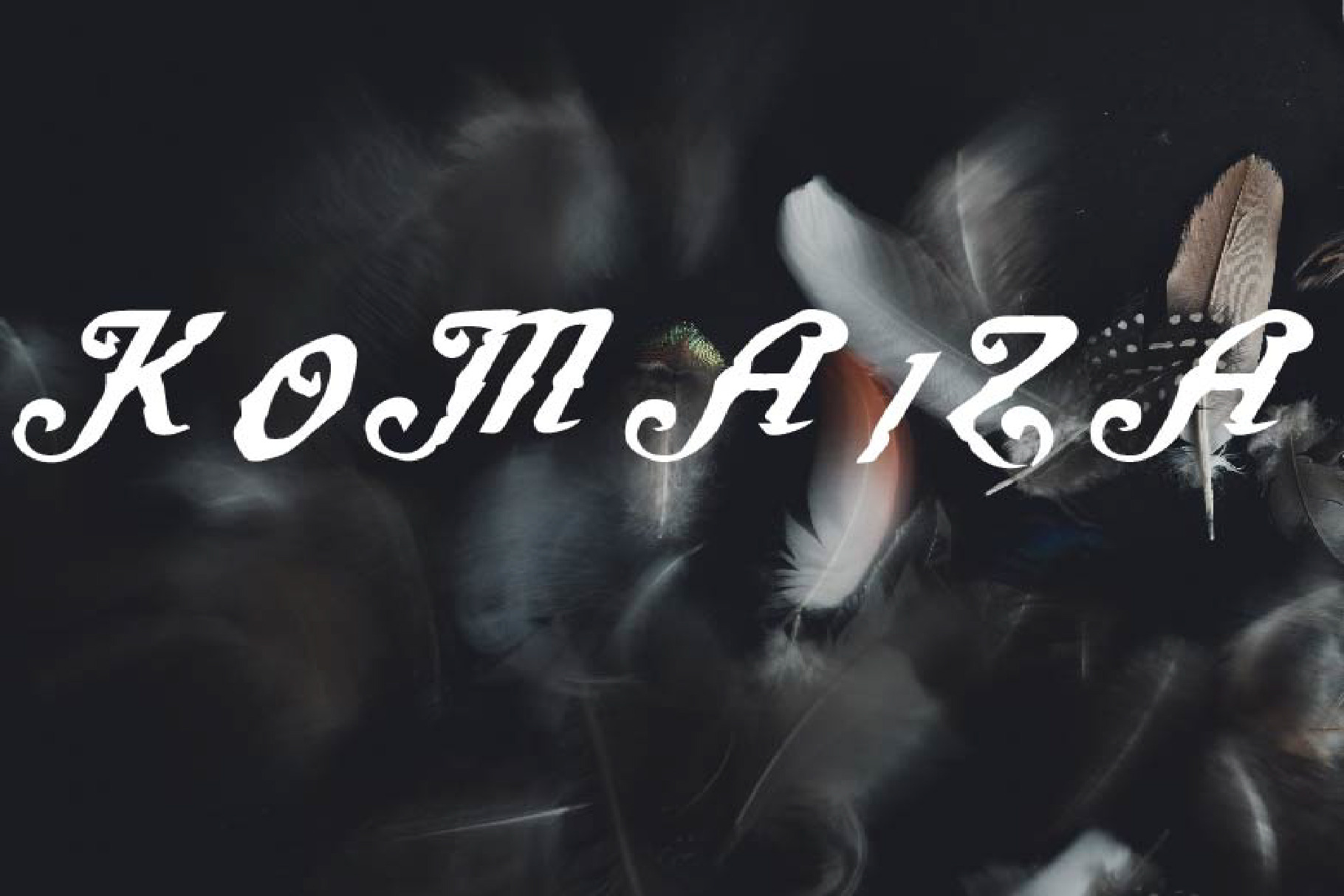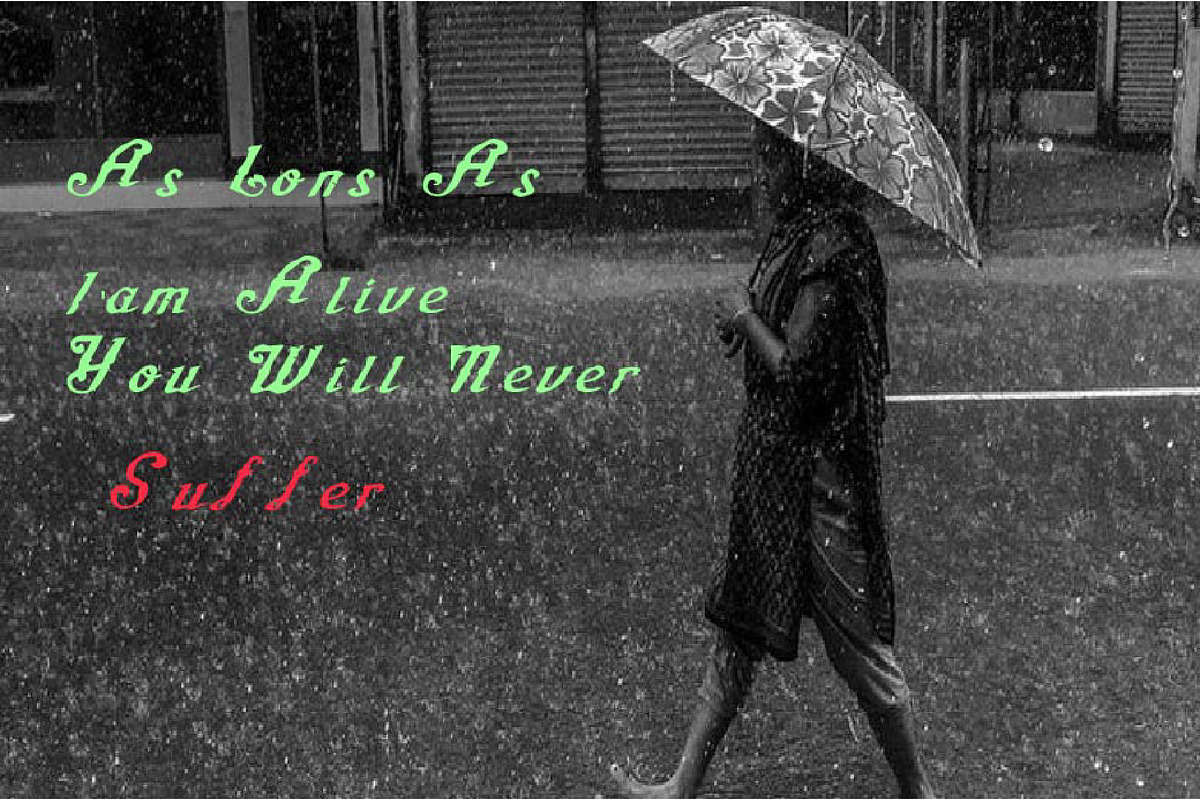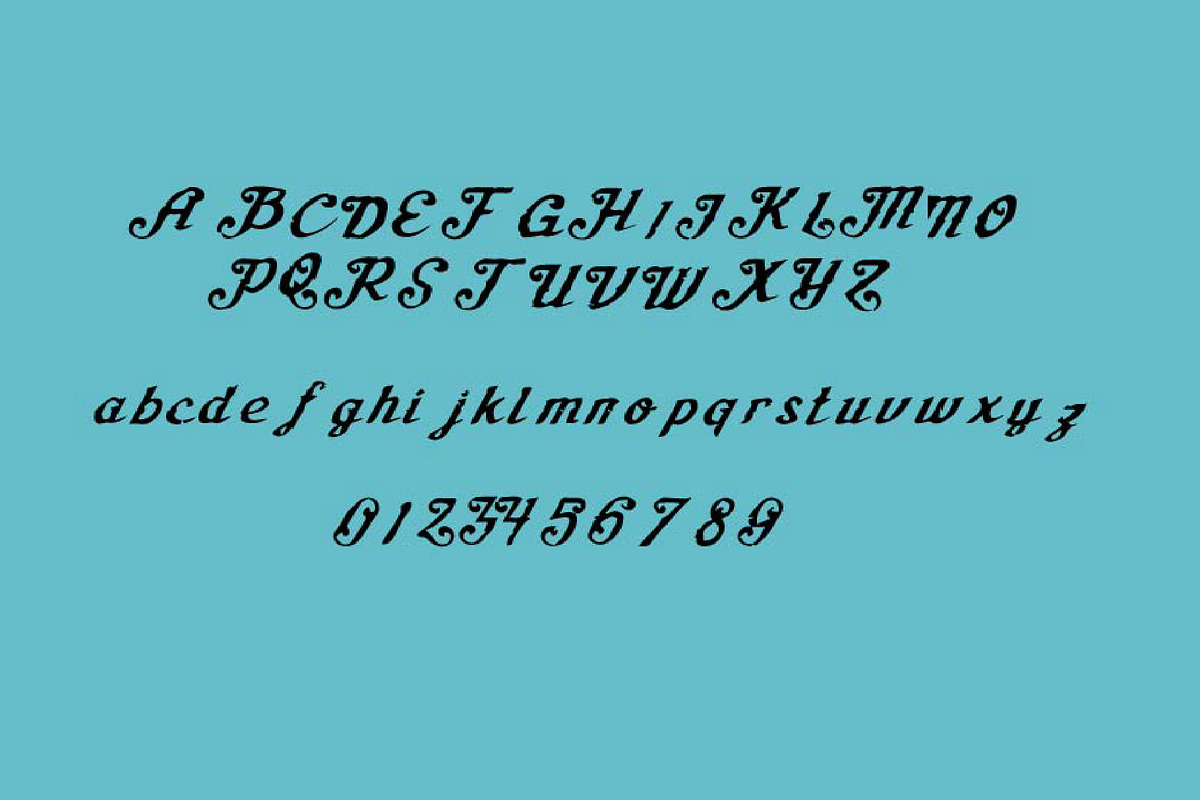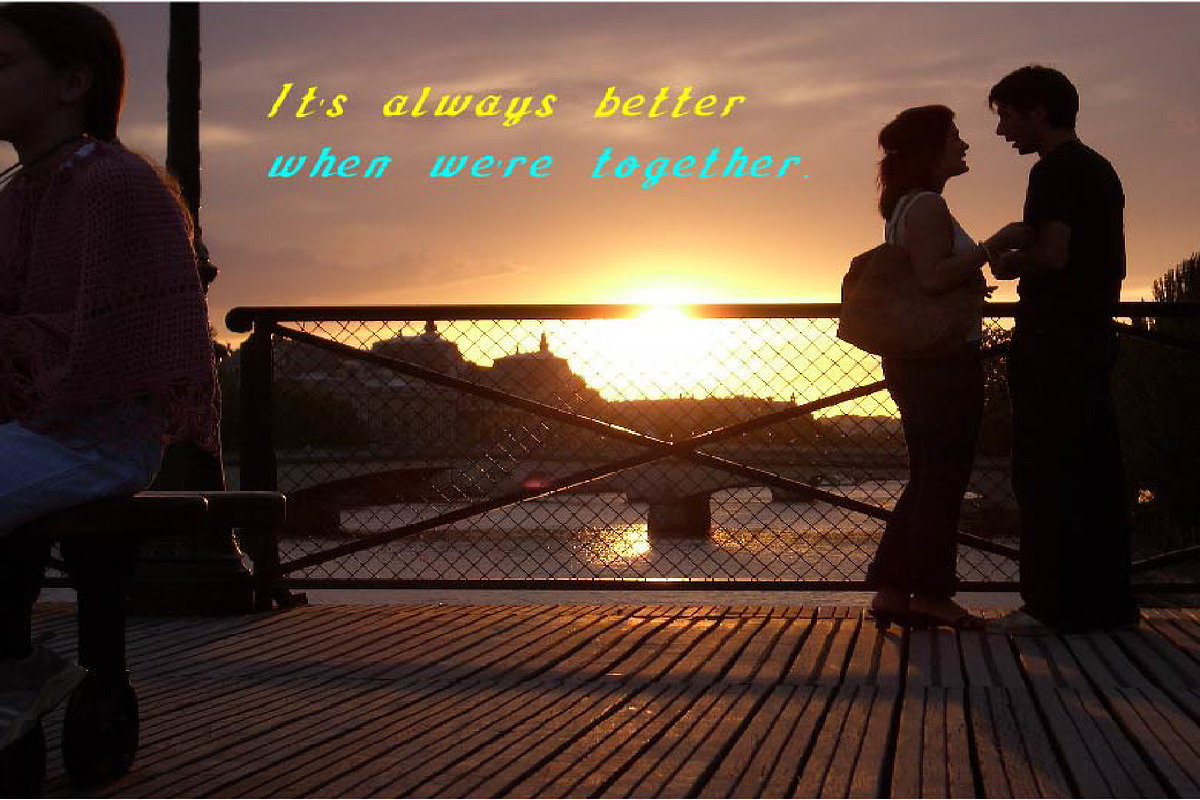
Komaiza Font
Komaiza is a chic and distinct script font. No matter the topic, this font will be an incredibly asset to your fonts’ library, as it has the potential to elevate any creation.